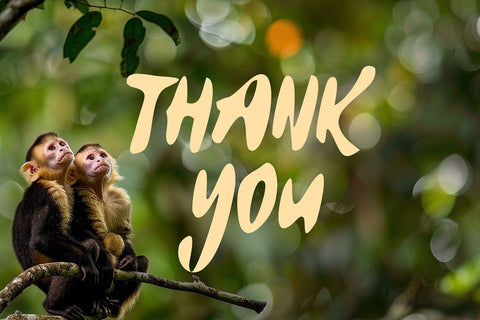
Jungle World - Display Font
Jungle World is a cute and quirky display font that brings a playful and adventurous vibe to your designs. With its whimsical character shapes and fun, vibrant style, this font is perfect for projects that need a touch of lightheartedness and creativity. Whether you're designing for children's books, playful posters, or any project that calls for a fun and lively aesthetic, Jungle World adds a charming and delightful element that makes your work stand out. Its quirky nature is sure to capture attention and bring a smile to anyone who sees it.
- Unique Characters